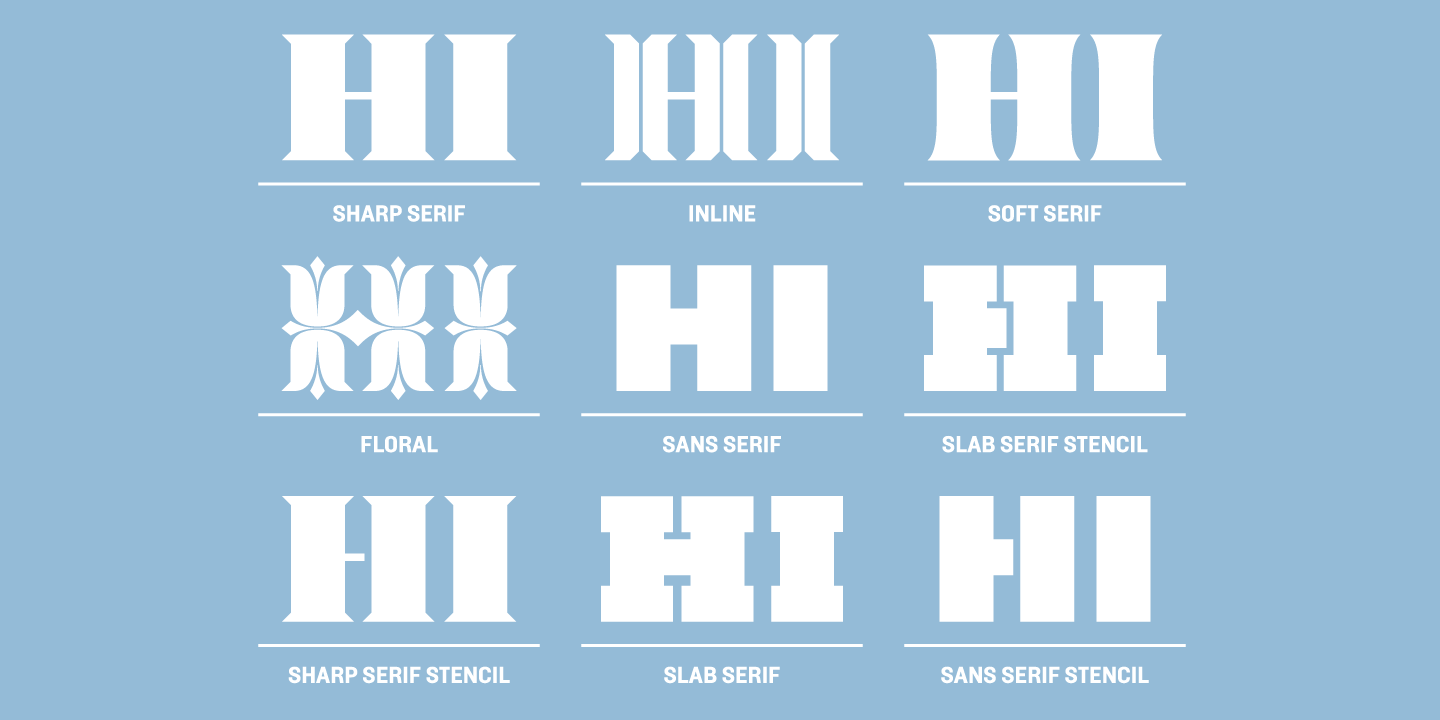
Diversa Font is perfect for modern branding projects, creative agency portfolios, fashion magazines, art gallery exhibitions, contemporary web design, startup logos, architectural presentations, design studio materials, and innovative marketing campaigns. This versatile typeface excels in environments where creative expression and professional sophistication need to coexist harmoniously in both digital and print applications.
What makes Diversa Font exciting is its remarkable ability to adapt and transform across different design contexts while maintaining its distinctive contemporary character. The font embodies true versatility through its clean geometric foundations enhanced with subtle artistic flourishes that give it personality without sacrificing legibility. Its carefully balanced proportions and modern aesthetic make it equally compelling for bold headlines and refined body text, offering designers unprecedented flexibility in creative expression.
The Diversa Font family encompasses a comprehensive range including Ultra Light, Light, Regular, Medium, Semi Bold, Bold, and Black weights. Each weight features corresponding Italic styles, creating a robust 14-style family. The collection also includes condensed and extended variants, along with special display cuts that provide additional creative possibilities for impactful typography and distinctive brand applications.
Whether you're crafting cutting-edge brand identities, editorial layouts, or digital interfaces, Diversa Font Free Download provides the creative foundation your projects deserve. Its contemporary elegance and exceptional versatility make it an invaluable asset for designers seeking a typeface that can effortlessly transition between corporate professionalism and artistic innovation while maintaining consistent visual impact across all media.